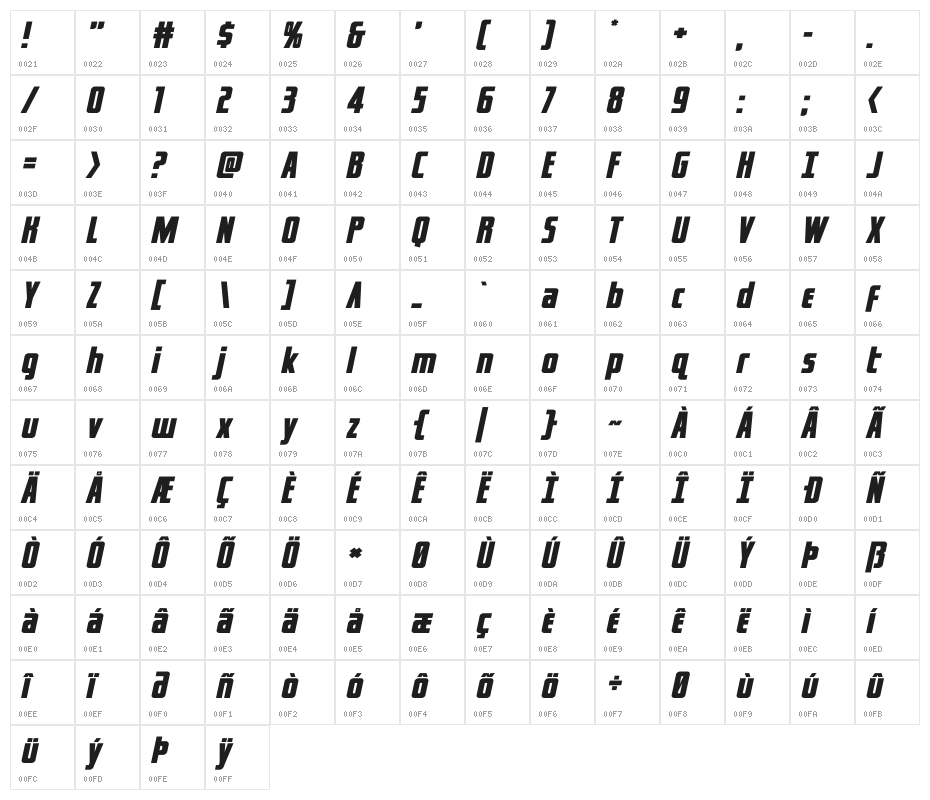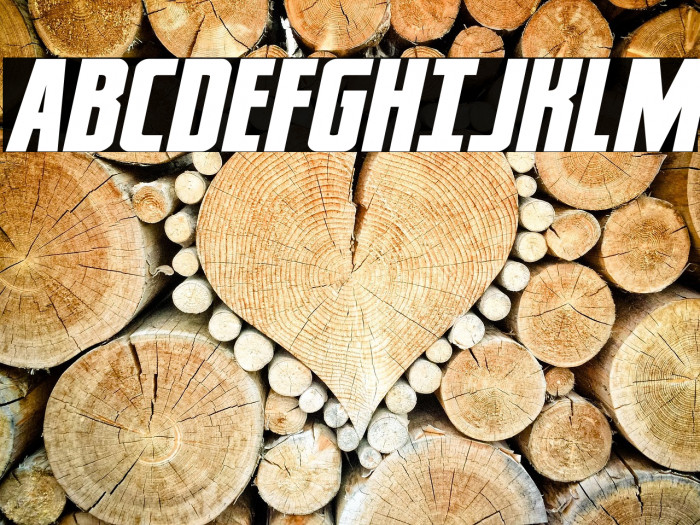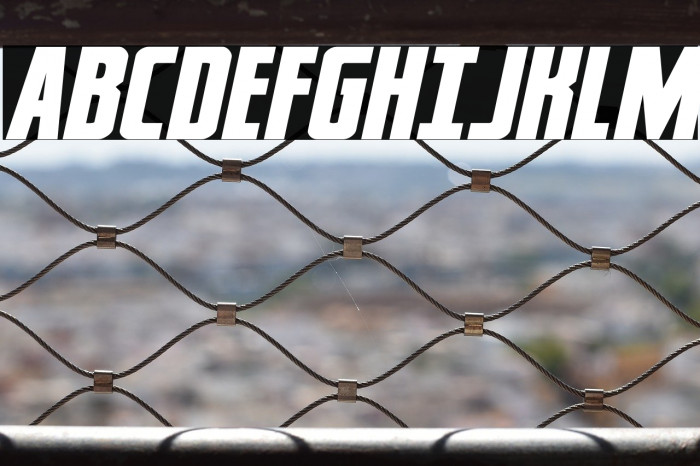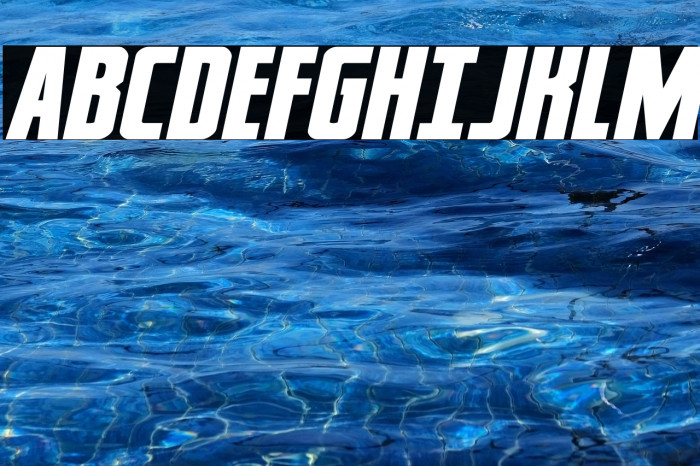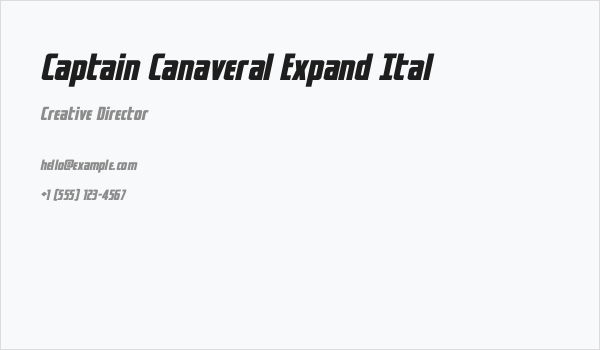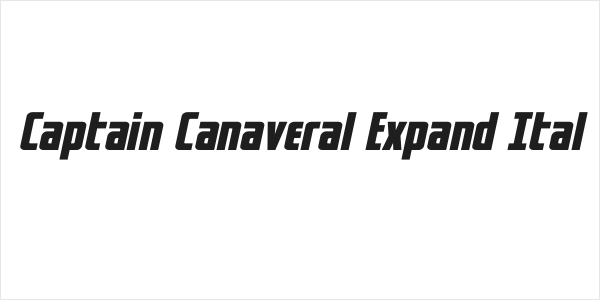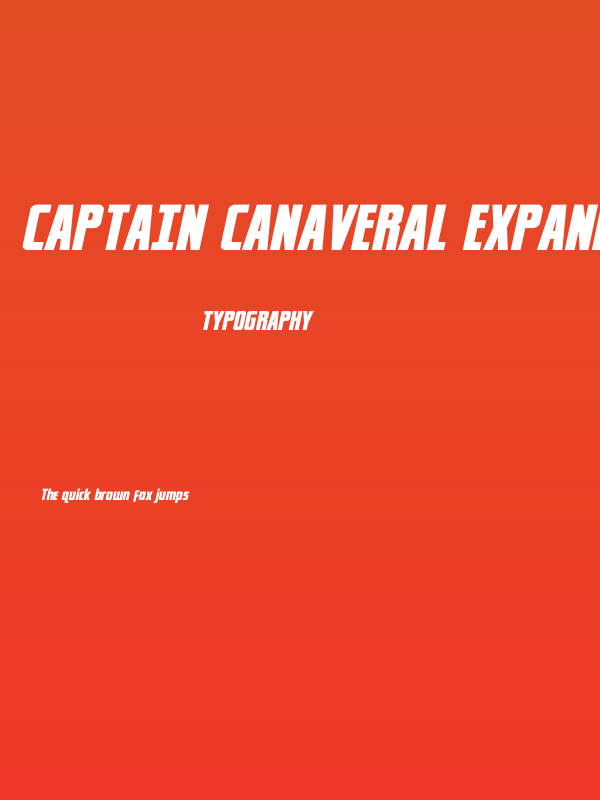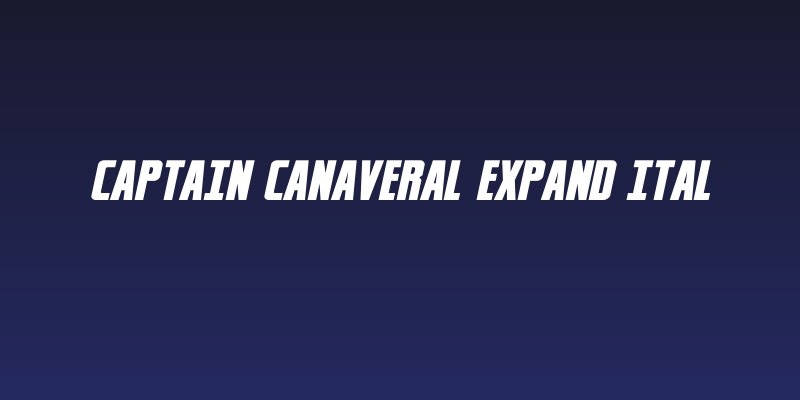
Captain Canaveral Expand Ital Font
Captain Canaveral Expand Ital Description
This font features a bold and dynamic style with an italicized slant, giving it a sense of motion and energy. The characters are expanded, providing a wide and impactful appearance. The uppercase and lowercase letters maintain a consistent design, with sharp angles and clean lines that enhance readability. The numerals and special characters follow the same aesthetic, ensuring uniformity across all text elements. This font is ideal for projects that require a strong and modern visual presence.
| Proposed Projects | Ideal for sports branding, dynamic posters, modern advertising, and impactful headlines. |